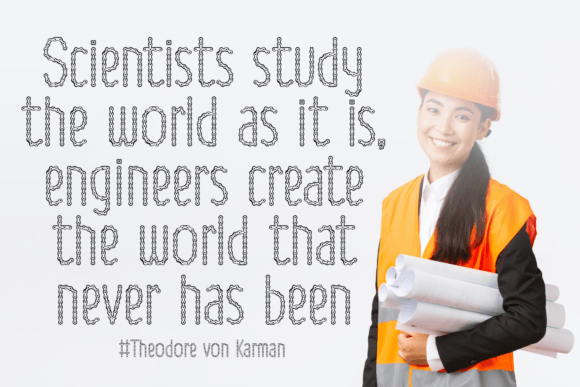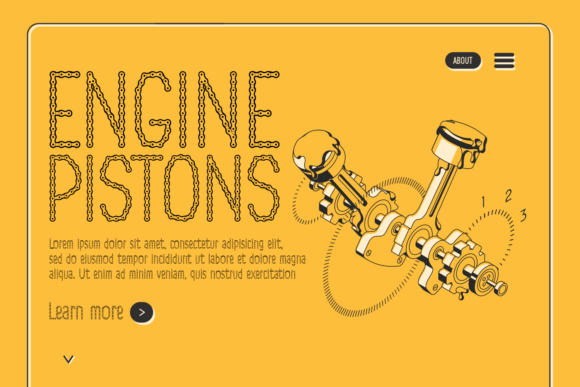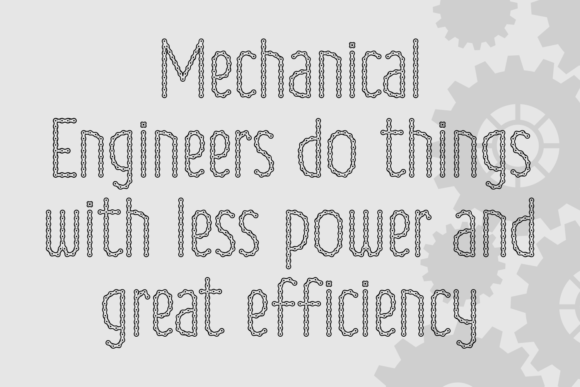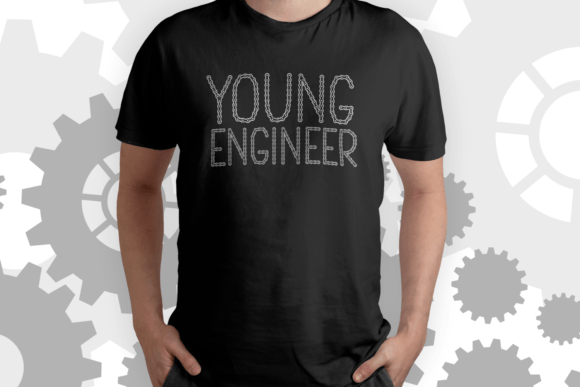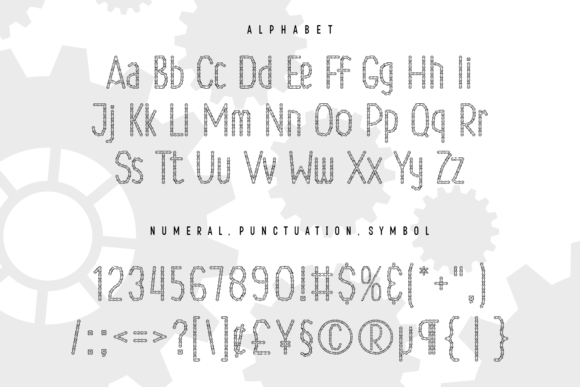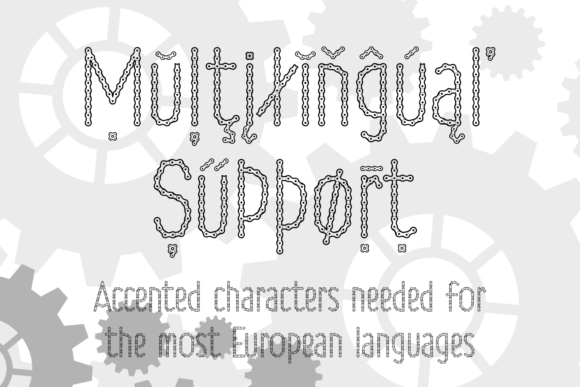
Introducing Chain Spirit Font: The Perfect Decorative Font for Science and Physics Enthusiasts
Are you a designer, crafty enthusiast, or science communicator looking for a unique and captivating font to elevate your projects? Look no further than Chain Spirit Font! This decorative typeface is specifically designed to add a touch of industrial chic and scientific flair to your titles, headings, and social media posts. In this article, we’ll dive into the world of Chain Spirit Font, exploring its features, benefits, and uses, as well as provide tips on how to make the most of this exciting new font.
What is Chain Spirit Font?
Chain Spirit Font is a decorative typeface that embodies the spirit of science, technology, engineering, and mathematics (STEM). Its unique design is inspired by the intricate links of a chain, conveying a sense of connection, strength, and innovation. With its bold and edgy aesthetic, Chain Spirit Font is perfect for science magazine titles, engineering social media posts, or any occasion celebrating physics.
Key Features of Chain Spirit Font
- Unique and eye-catching design: Chain Spirit Font boasts a distinctive chain-link-inspired design that sets it apart from other fonts.
- Decorative and bold: This font is perfect for making a statement with your titles and headings.
- Highly legible: Despite its decorative nature, Chain Spirit Font remains clear and easy to read, even at smaller sizes.
- Versatile: Use Chain Spirit Font for a wide range of projects, from science and engineering to technology and mathematics.
Benefits of Using Chain Spirit Font
So, why choose Chain Spirit Font for your projects? Here are just a few benefits:
- Grabs attention: Chain Spirit Font is sure to capture the attention of your audience, making your titles and headings stand out.
- Adds a touch of industrial chic: This font’s chain-link design adds a cool, industrial touch to your projects.
- Perfect for science and physics enthusiasts: Chain Spirit Font is a great way to show your love for science and physics, making it a fantastic choice for enthusiasts and professionals alike.
Tips for Using Chain Spirit Font
To get the most out of Chain Spirit Font, here are some tips:
- Use it for titles and headings: Chain Spirit Font is perfect for making a statement with your titles and headings.
- Experiment with colors and textures: Try pairing Chain Spirit Font with different colors and textures to add depth and interest to your projects.
- Mix it with other fonts: Combine Chain Spirit Font with other fonts to create a unique and visually appealing typography.
Who Can Benefit from Chain Spirit Font?
Chain Spirit Font is perfect for:
- Designers: Graphic designers, UI/UX designers, and visual designers can use Chain Spirit Font to add a touch of industrial chic to their projects.
- Crafty enthusiasts: Crafters, DIY enthusiasts, and makers can use Chain Spirit Font to create unique and eye-catching titles and headings for their projects.
- Science communicators: Scientists, science writers, and educators can use Chain Spirit Font to add a touch of personality to their science communication materials.
In conclusion, Chain Spirit Font is a unique and captivating decorative font that’s perfect for science magazine titles, engineering social media posts, or any occasion celebrating physics. With its bold and edgy aesthetic, Chain Spirit Font is sure to grab the attention of your audience and add a touch of industrial chic to your projects. So why wait? Download Chain Spirit Font today and start creating!